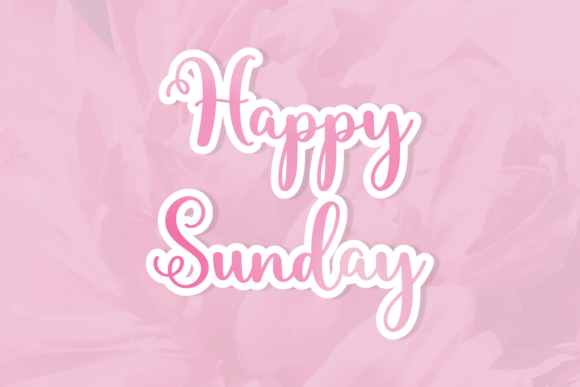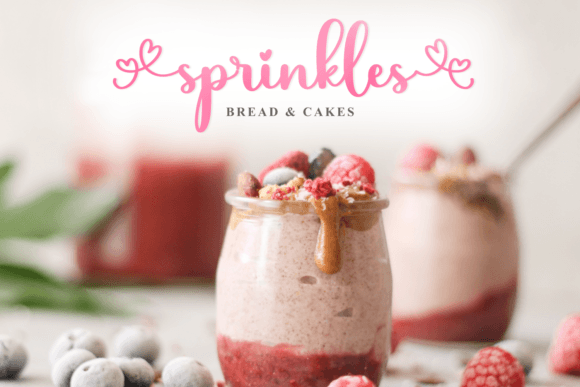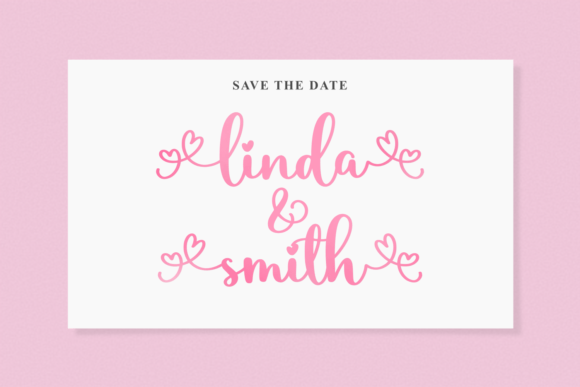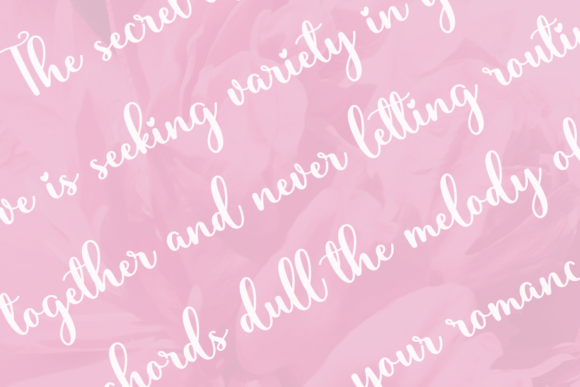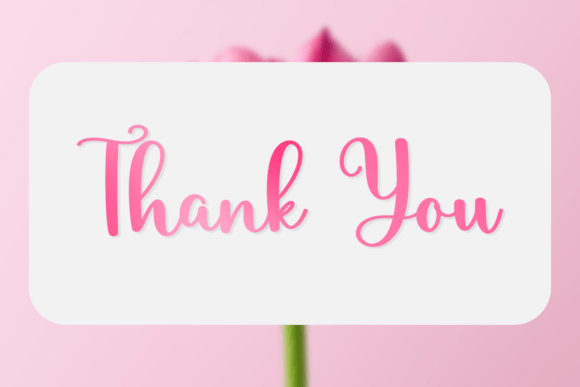
Discover the Charm of Blackpink Font: Elevate Your Designs with this Sweet Handwritten Script
Are you a designer or crafter looking for a unique and captivating font to add a personal touch to your creations? Look no further than the Blackpink Font, a curly and sweet handwritten script font that is sure to make your designs stand out. In this article, we’ll dive into the world of Blackpink Font, exploring its features, benefits, and uses, as well as provide tips on how to incorporate it into your work.
What is Blackpink Font?
Blackpink Font is a beautiful, handcrafted script font that exudes a sense of elegance and playfulness. Its curly and sweet letterforms are perfect for adding a touch of whimsy to your designs, making it ideal for a wide range of applications, from logos and branding to invitations and website headers.
Key Features of Blackpink Font
- Handwritten script font: Blackpink Font is a genuine handwritten script font, giving it a personal and organic feel that sets it apart from more traditional fonts.
- Curly and sweet letterforms: The font’s curly and sweet letterforms add a touch of playfulness and elegance to your designs, making them perfect for a wide range of applications.
- Highly versatile: Blackpink Font can be used for everything from logos and branding to invitations, websites, quotes, and more.
- Easily readable: Despite its curly and playful nature, Blackpink Font is highly readable, making it perfect for use in both digital and print applications.
Benefits of Using Blackpink Font
So why choose Blackpink Font for your designs? Here are just a few benefits of using this beautiful script font:
- Adds a personal touch: Blackpink Font’s handwritten nature gives your designs a personal and unique feel that sets them apart from more traditional fonts.
- Boosts creativity: The font’s curly and sweet letterforms are sure to inspire your creativity and add a touch of playfulness to your designs.
- Perfect for branding: Blackpink Font is ideal for use in logos, branding, and packaging, helping you to create a cohesive and recognizable visual identity for your business or product.
- Easy to use: Blackpink Font is highly versatile and can be used in a wide range of applications, from digital designs to print materials.
Using Blackpink Font in Your Designs
So how can you incorporate Blackpink Font into your designs? Here are a few ideas to get you started:
- Logos and branding: Use Blackpink Font to create a unique and recognizable logo for your business or product.
- Invitations and events: Add a touch of elegance and whimsy to your invitations and event materials with Blackpink Font.
- Websites and blogs: Use Blackpink Font as a header font or for adding quotes and testimonials to your website or blog.
- Social media graphics: Create eye-catching social media graphics with Blackpink Font, perfect for sharing quotes, promotions, or announcements.
Tips for Getting the Most out of Blackpink Font
Here are a few tips for getting the most out of Blackpink Font:
- Experiment with colors: Blackpink Font looks great in a range of colors, so don’t be afraid to experiment and find the perfect hue for your design.
- Mix and match: Combine Blackpink Font with other fonts to create a unique and eye-catching visual effect.
- Pay attention to spacing: Make sure to adjust the spacing between letters and words to ensure that your text is easy to read and visually appealing.
In conclusion, Blackpink Font is a beautiful and versatile script font that is sure to elevate your designs and make them stand out. With its curly and sweet letterforms, highly readable nature, and ease of use, it’s the perfect choice for designers and crafters looking to add a personal touch to their creations. So why not give Blackpink Font a try today and see the difference it can make in your designs?